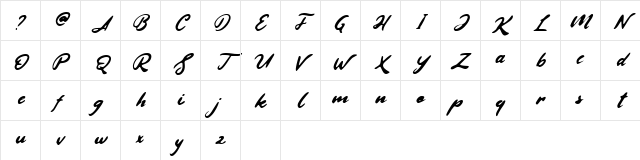
Vintage Quotes Regular
Foundry: Lettersiro 2019
Designer: Muhammad Sirojuddin
Design Context for Vintage Quotes
Vintage Quotes wears its vintage influences proudly, with letterforms that recall mid-century signage, classic packaging, and nostalgia-driven design.
Font Pairing: Combine Vintage Quotes with a simple slab or neutral sans - period-accurate companions reinforce the vintage feel without competing for attention.
Pro Tip: Lean into Vintage Quotes's period character by pairing it with aged paper textures, muted colour palettes, and vintage illustration styles.